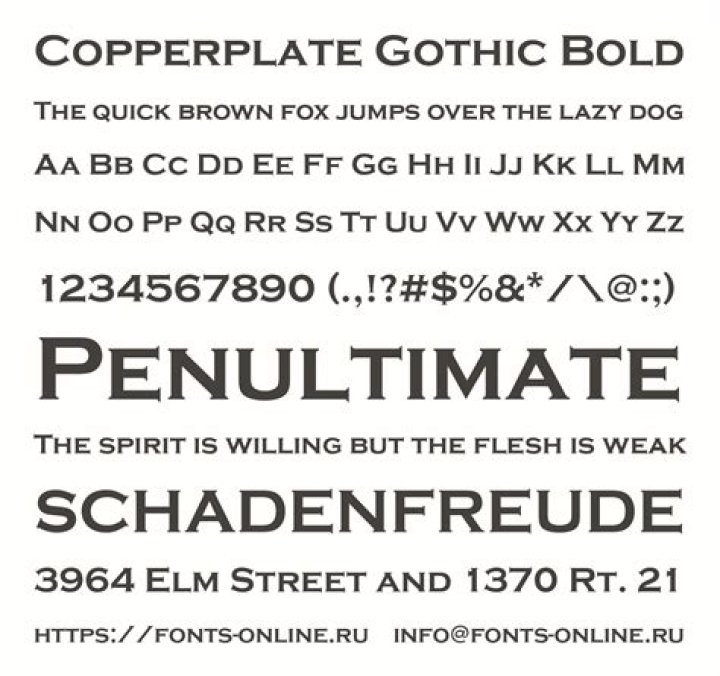
Copperplate Gothic is a typeface designed by Frederic W….Copperplate Gothic.
| Category | Wedge Serif |
|---|---|
| Foundry | American Type Founders |
| Date released | 1901 |
| Re-issuing foundries | Linotype |
What font is close to Copperplate?
Gamour (OTF,TTF) This minimal and modern serif font family has a close resemblance to the Copperplate typeface.
What does Copperplate font look like?
Copperplate is like a sans-serif typeface – its maker even called it Gothic – with serifs. The vertical and horizontal stroke weights are very like a sans-serif typeface, yet the terminus of each stroke is affixed with a standard serif.
How do you write in copperplate?
Writing rules and basic strokes The general rule of Copperplate is to write the upstrokes thin (without pressing the pen) and the downstrokes thick (pressing the pen).
What does copperplate font look like?
Is Copperplate a standard font?
Although a true lowercase has never been designed, Copperplate Gothic is ideal for all-capital text typically set in small print. For example, it’s very popular for use on business cards….Overview.
Is Copperplate a serif font?
What is the font family for Copperplate Gothic Bold?
What is the name of the Gothic font?
Copperplate Gothic Font. Copperplate Gothic is a typeface designed through Frederic W. Goudy and launched with the aid of American Type Founders (ATF) in 1901. While termed a “Gothic”, the face has small glyphic serifs that act to emphasize the blunt terminus of vertical and horizontal strokes.
Why did Goudy design Copperplate Gothic in capitals best?
Goudy designed Copperplate Gothic in capitals best because the design changed into meant to be used for headings and key phrases in preference to for frame text. It isn’t always at all characteristic of Goudy’s paintings, that is normally inside the vintage-fashion serif genre.